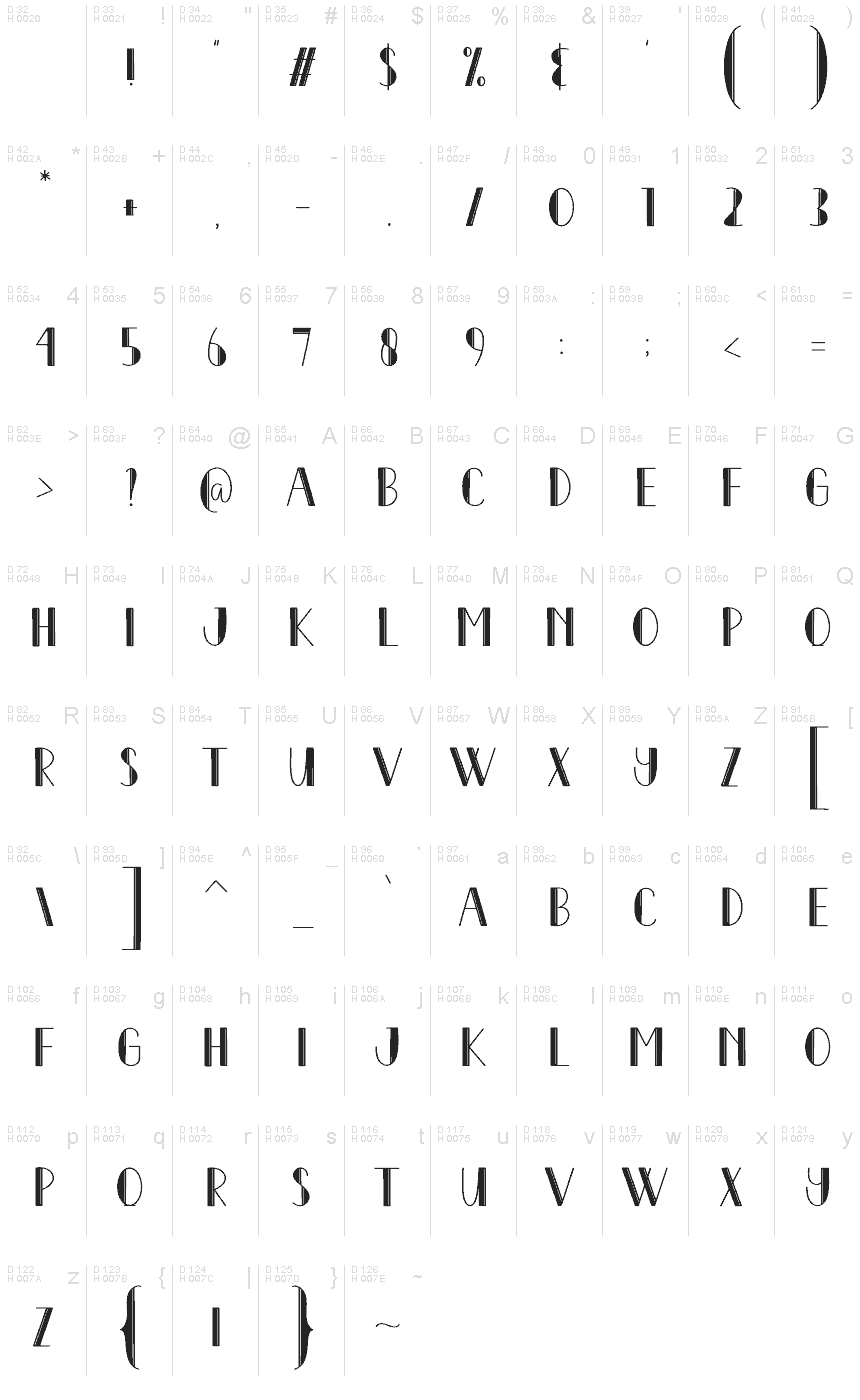
Avanger
Avanger font, crafted by Andi Moz, is a retro display font that embodies a geometric feel with an art deco influence. Its condensed structure lends it an elegant and sophisticated look, perfectly harmonizing with a modern aesthetic.
Dive into an array of use cases such as branding projects, logo design, print materials, website headers, packaging design, promotional campaigns, advertising banners, business cards, invitations and greeting cards.